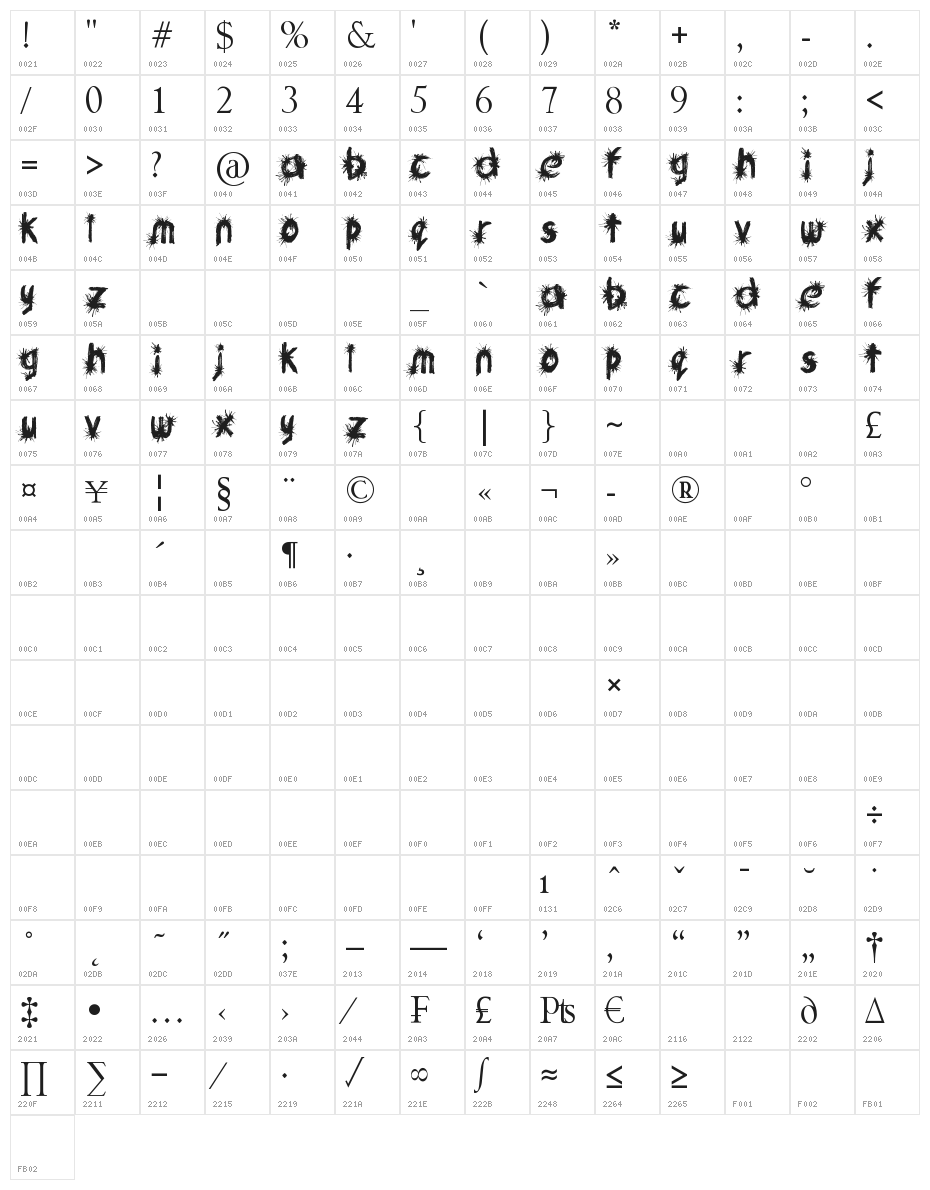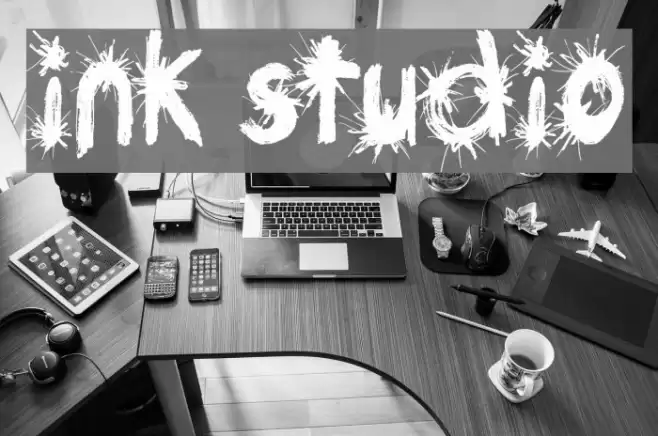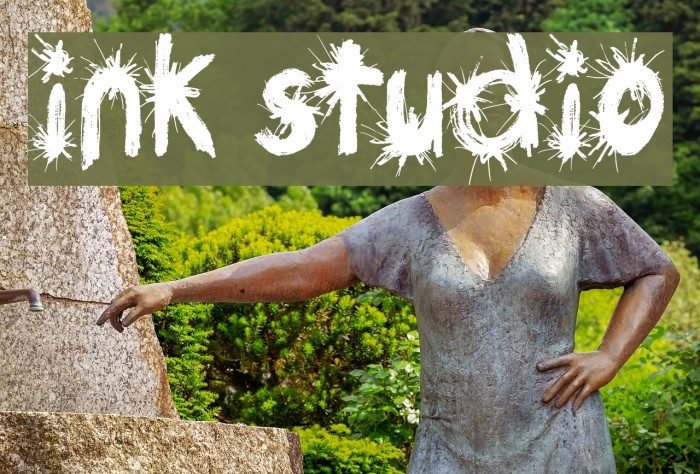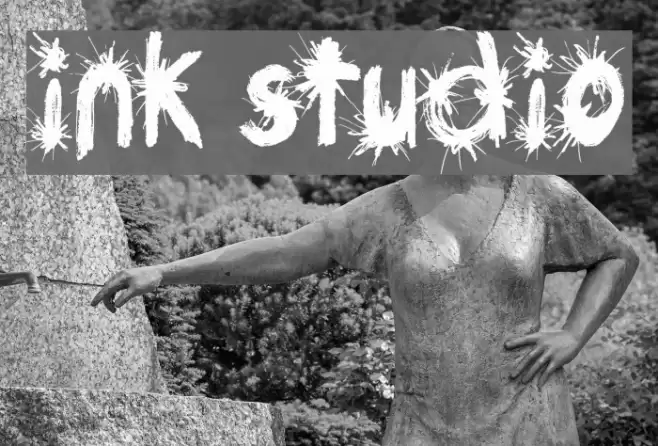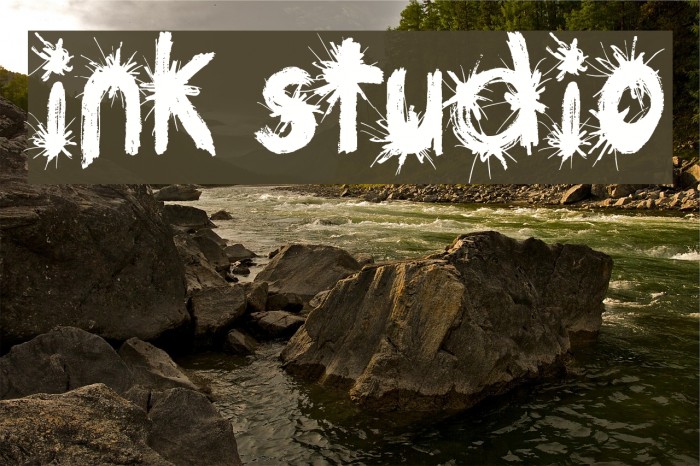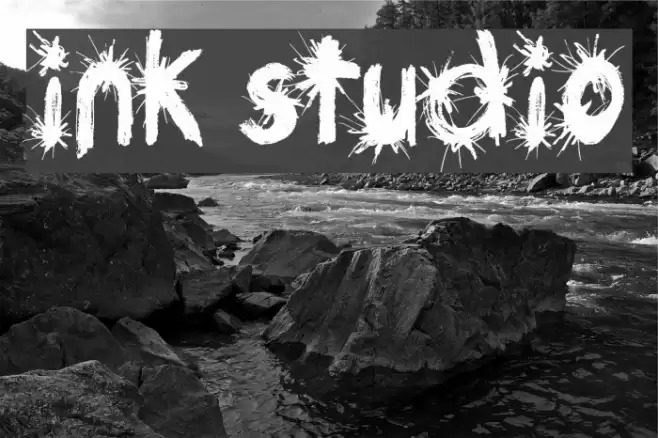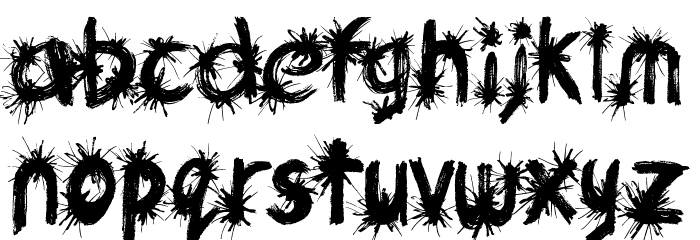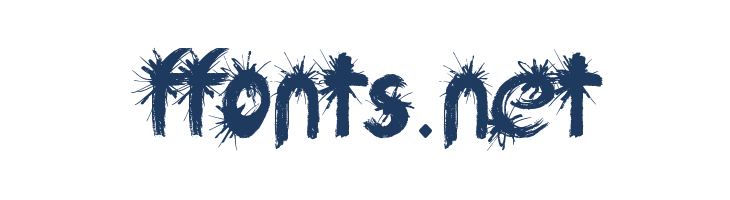
Ink Studio Font
Font by Jonathan Harris - www.tattoowoo.com
| Caso d'uso | Headlines, Logos, Artistic projects |
| Progetti proposti | Ideal for album covers, posters, graffiti art, and any project needing an edgy, artistic flair. |